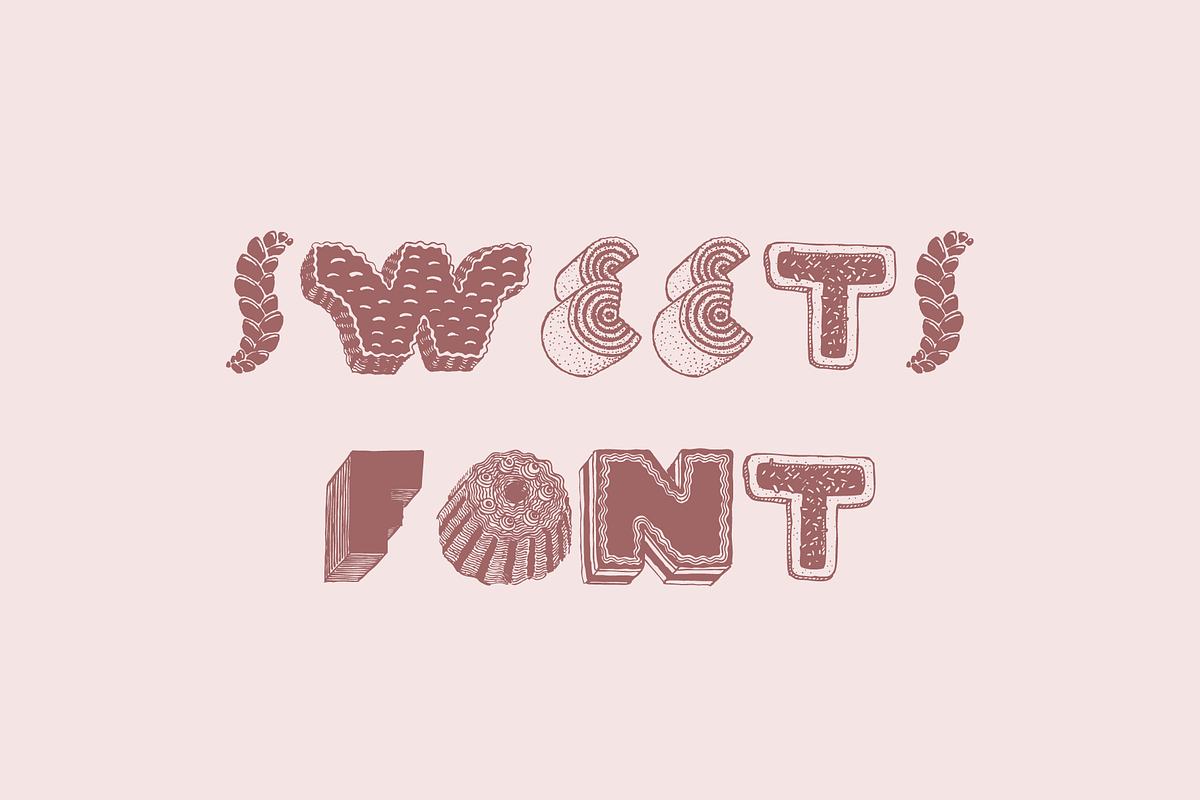
Sweets Font Free Download is a playful and delightful typeface that adds a sprinkle of fun to any design. With its rounded edges, soft curves, and candy-inspired charm, Sweets is perfect for bakery branding, children’s products, birthday invitations, cute packaging, and cheerful social media posts.
This font captures the essence of joy and sweetness, making it an excellent choice for designs that aim to feel friendly, whimsical, and light-hearted. Whether you're designing a logo for a dessert shop or crafting colorful digital content, Sweets Font brings a bright and happy personality to your project.